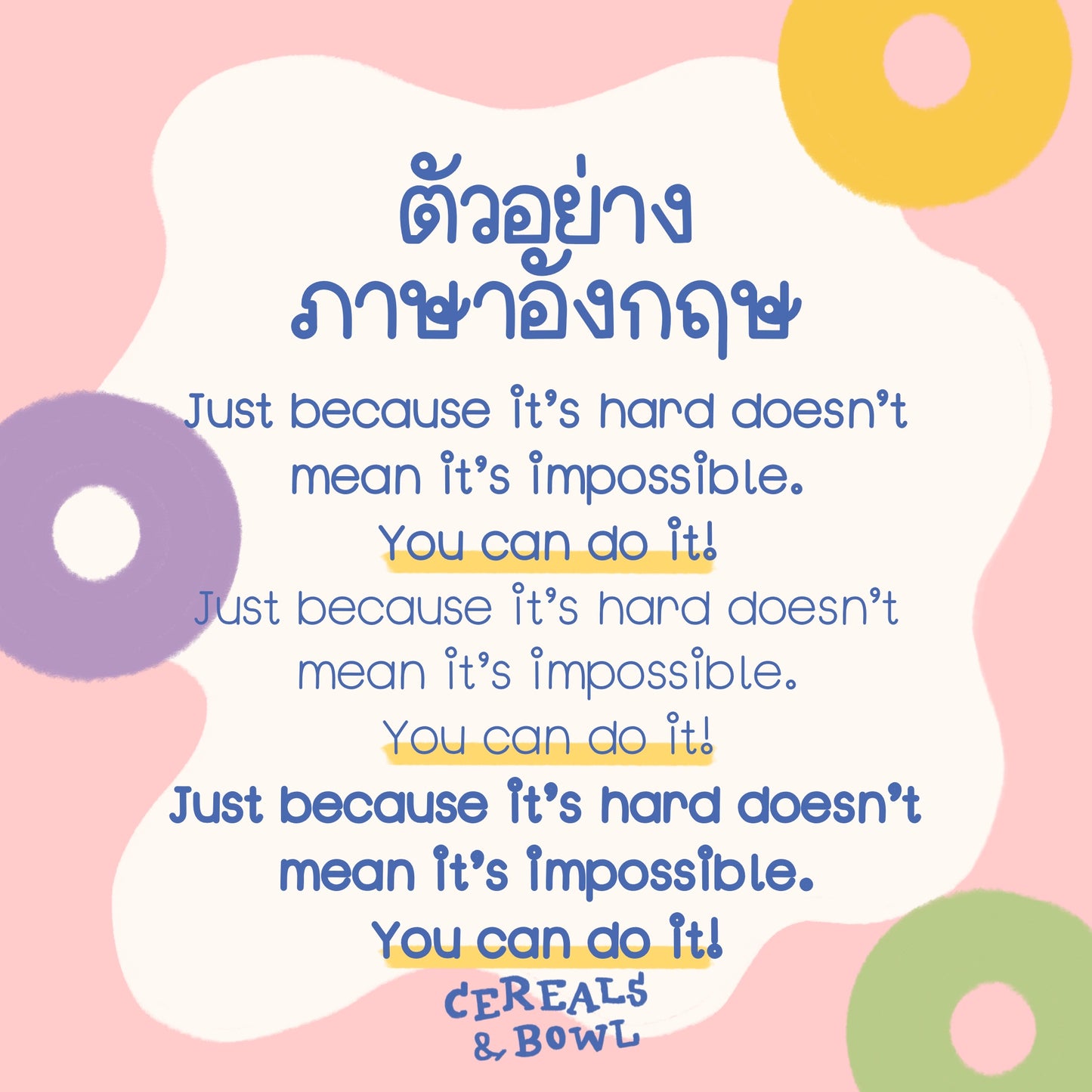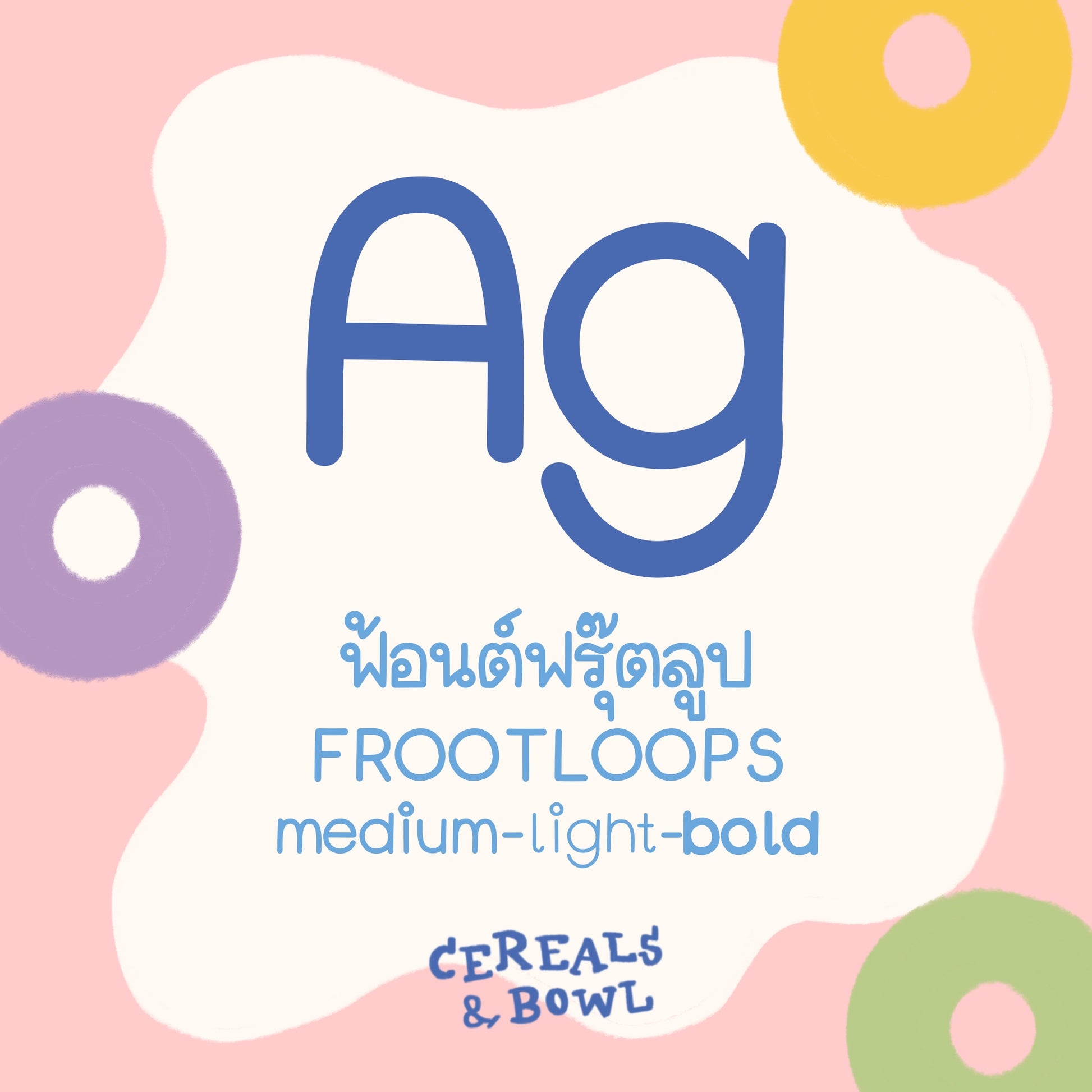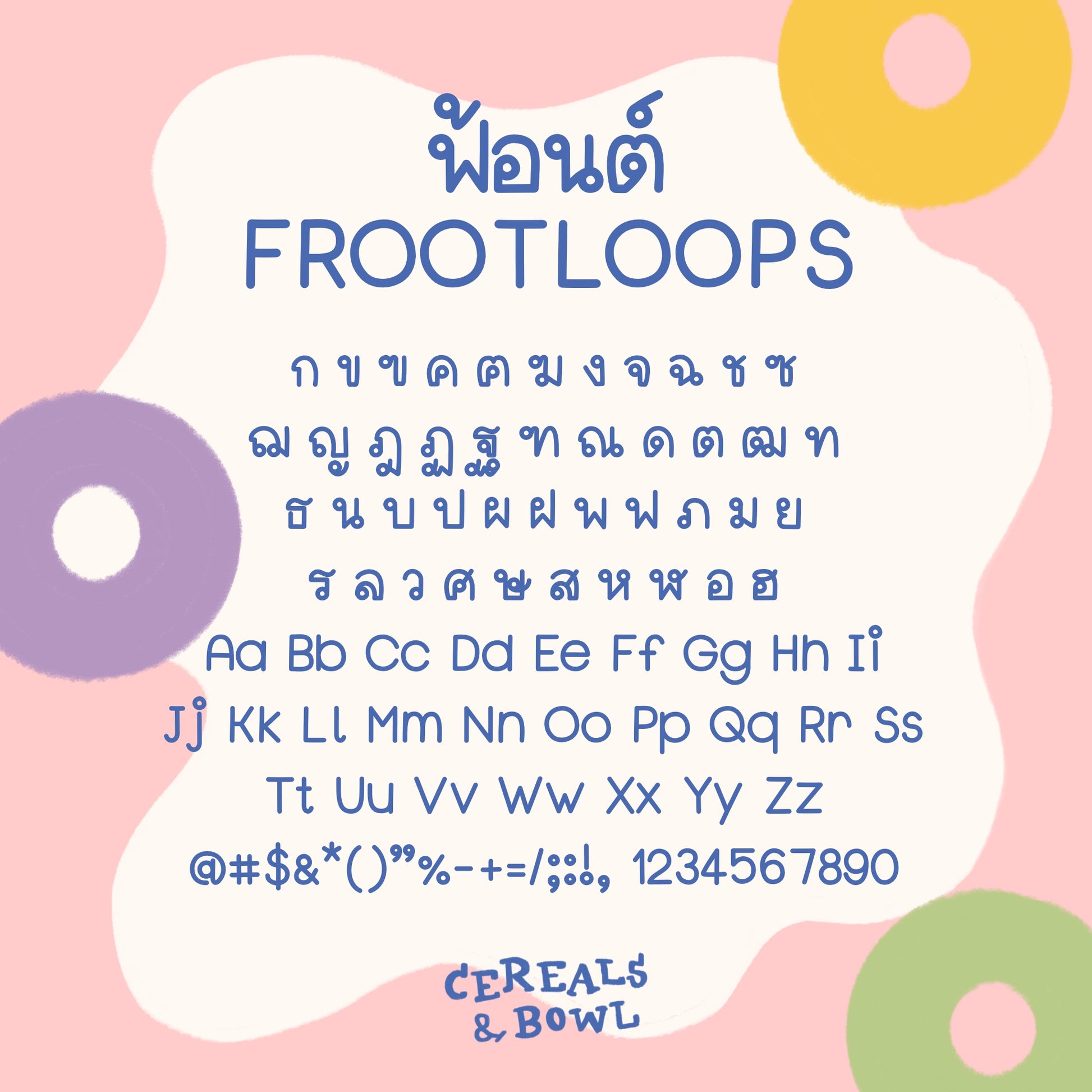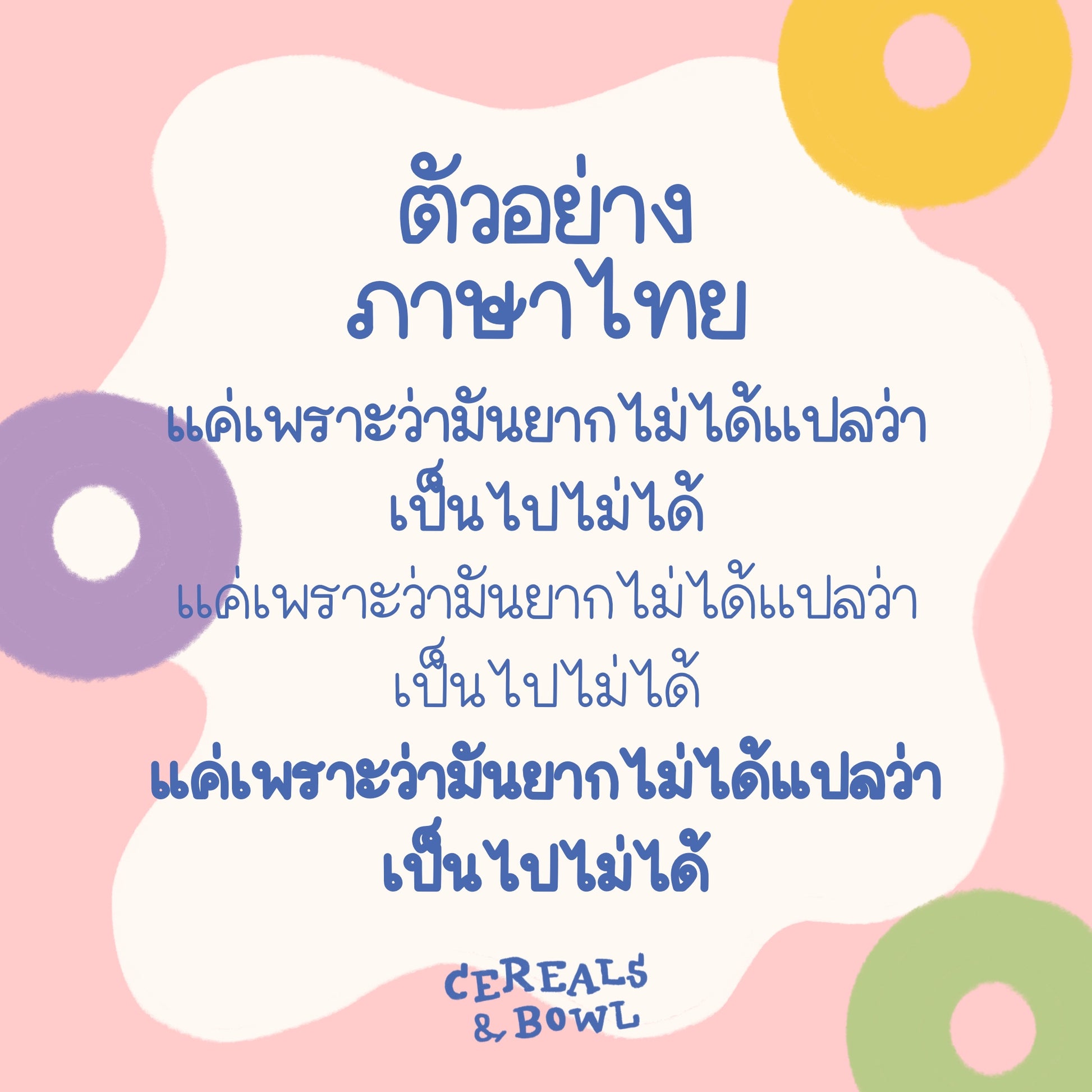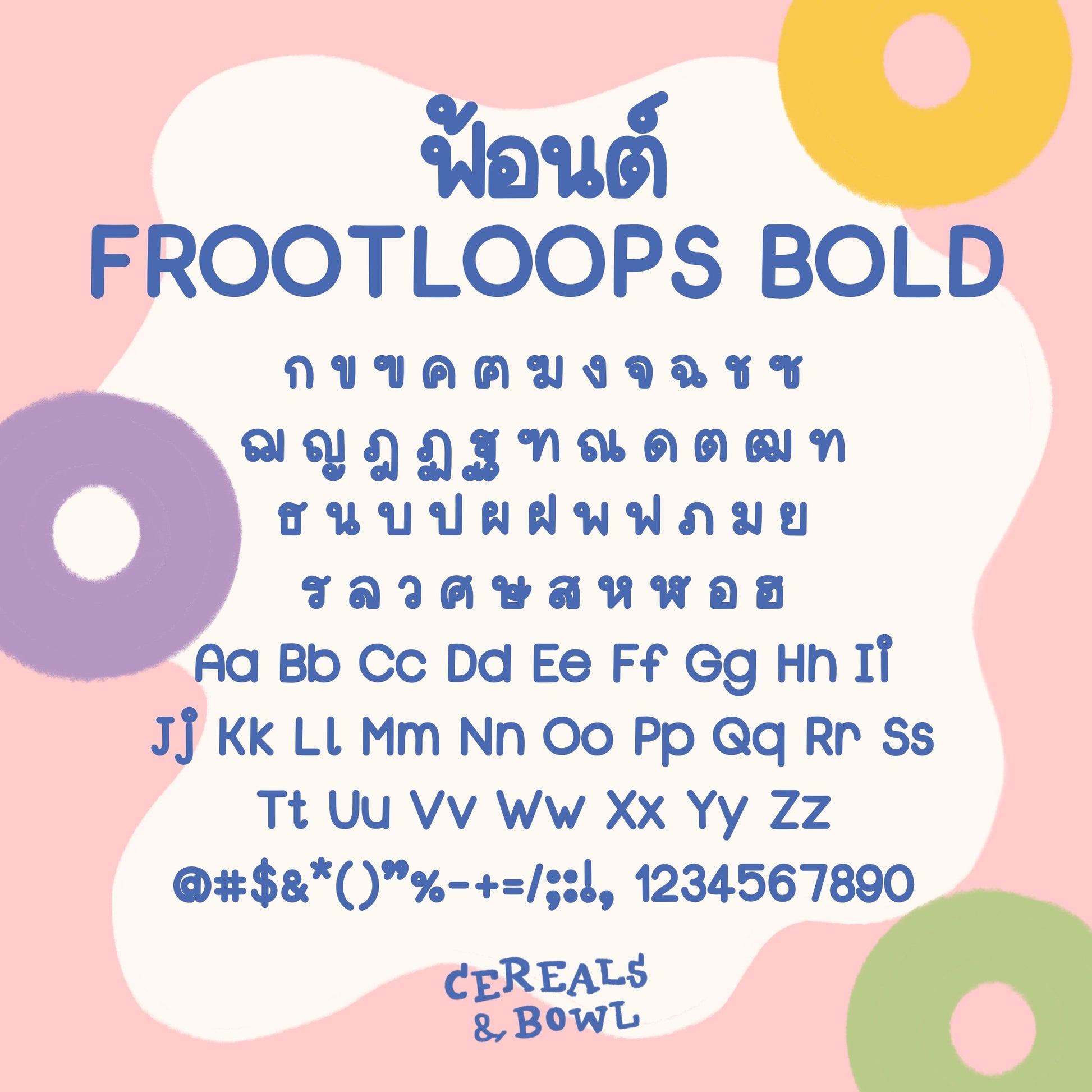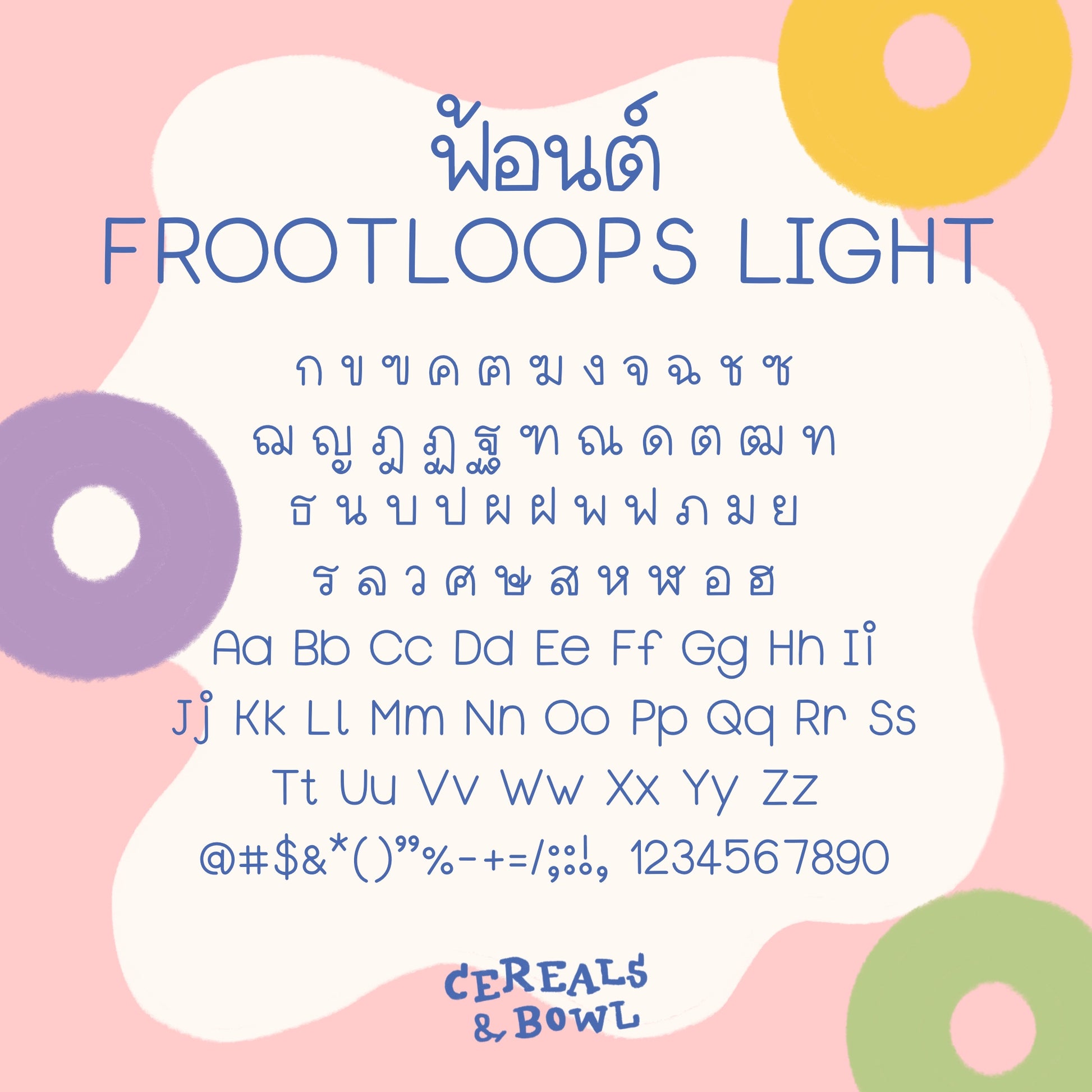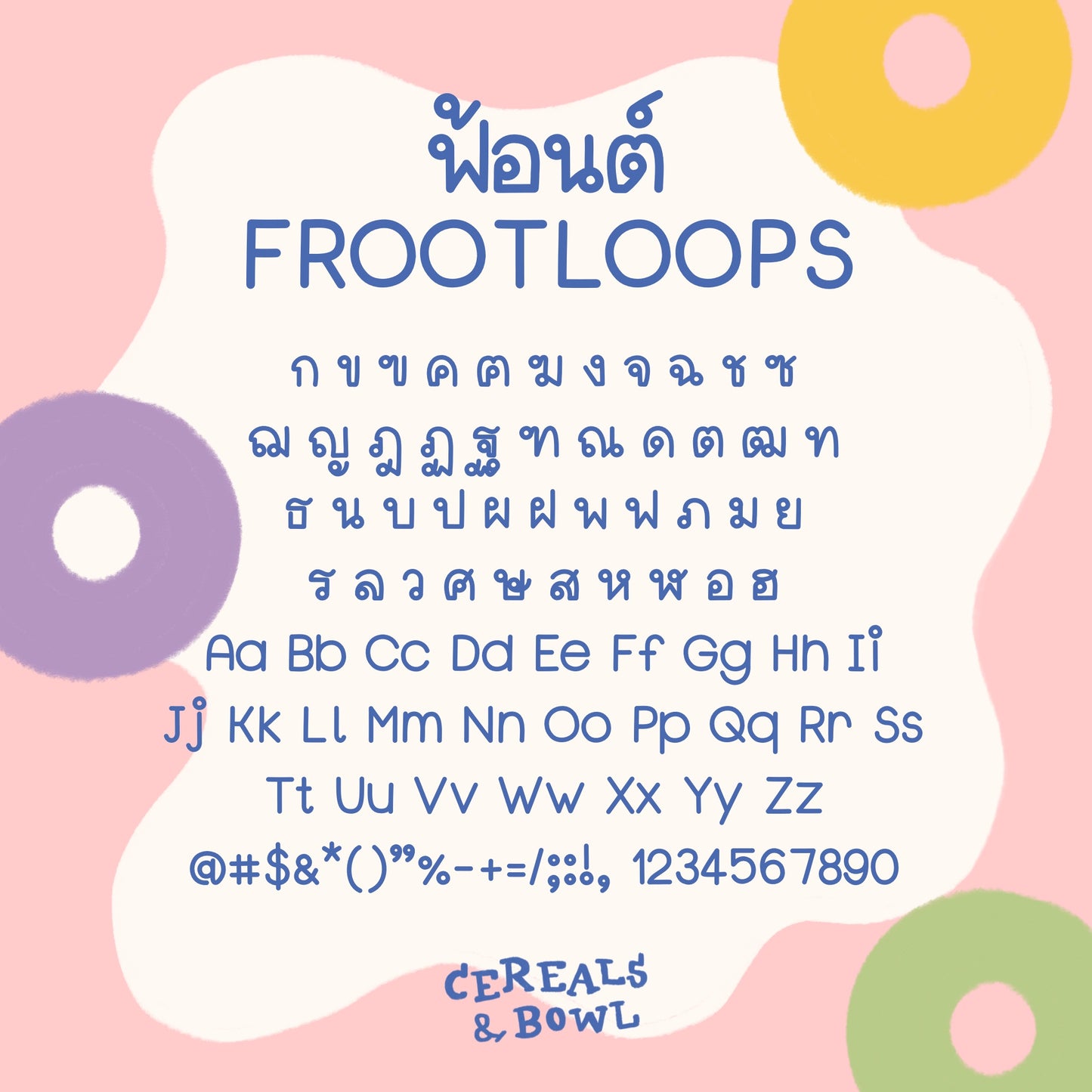
Froot loops (Font)
FROOTLOOPS Font
This font was designed with a soft, round shape—just like the cute, colorful loops of your favorite cereal!
the set includes Regular, Light, and Bold styles, making it super versatile and worth it!
ลักษณะพิเศษของฟ้อนท์นี้ ที่จะอ้วนกลมเหมือนกับลักษณะกลมๆของ cereals Frootloops ที่ทุกคนคุ้นเคยนั่นเองง ในเซ็ทจะประกอบด้วย regular, light, bold